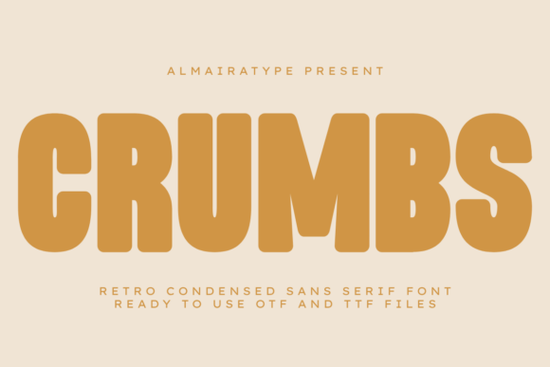
Crumbs Font
If you've been searching for a bold, retro-inspired typeface that works just as well on a t-shirt mockup as it does on a bakery logo, Crumbs Font is worth a closer look. It's a condensed sans serif with rounded geometric shapes and a warm vintage personality rooted in 70s design. Whether you run a print-on-demand shop, design custom apparel, or simply love crafting, this font is built to handle a wide range of creative projects with clean, professional results.
What Makes Crumbs Font a Good Fit for Commercial Design?
Not every retro font plays nicely with modern production tools. Some look great on screen but fall apart when you try to cut vinyl or print on fabric. Crumbs solves that problem with ultra-clean vector outlines that are fully compatible with Cricut, Silhouette, and other popular cutting machines. The smooth curves mean less time weeding and fewer headaches especially when you're working on small details for stickers, mugs, or decals.
The condensed, compressed structure also gives it a practical edge. You can fit more text into tight spaces without sacrificing readability, which matters a lot when you're designing packaging labels, hang tags, or social media graphics.
Who Is This Font Designed For?
Crumbs works well for a surprisingly broad audience. Here are a few groups who tend to get the most out of it:
• Print-on-demand sellers who need bold, eye-catching typography for t-shirts, hoodies, and tote bags
• Small bakery or food brands looking for a friendly, warm identity that feels approachable
• Craft enthusiasts making personalized gifts, party decorations, or home décor with a cutting machine
• Streetwear and clothing brand owners who want a vintage-inspired typeface that still feels current
• Graphic designers building logos, posters, and social media content with a retro aesthetic
The rounded letterforms give it a friendly, approachable quality not too stiff, not too playful. That balance makes it versatile enough for both commercial and personal projects.
What Kind of Projects Does It Work Best With?
Think of Crumbs as a display font that's meant to grab attention. It's not the typeface you'd use for long paragraphs of body text. Instead, it shines in situations where you need a strong visual statement:
• Bold headlines and titles
• T-shirt designs and apparel graphics
• Product packaging and labels
• Social media posts and promotional banners
• Custom stickers, decals, and vinyl crafts
• Logo design for retro or vintage-themed brands
If you're building a brand around a nostalgic, warm feeling think old-school diners, classic snack packaging, or 70s-inspired streetwear this typeface fits right in.
How Does It Compare to Other Condensed Fonts?
Does It Work Well With Cricut and Silhouette?
Yes and this is one of the font's strongest selling points for crafters. The clean, well-defined outlines mean the cutting machine software can trace paths accurately without jagged edges or messy intersections. That translates to:
• Smoother weeding on vinyl projects
• Crisper cuts on heat transfer material
• Less time troubleshooting design files before cutting
If you've ever struggled with a font that looked fine on screen but produced messy cuts, you'll appreciate how well Crumbs performs in production.